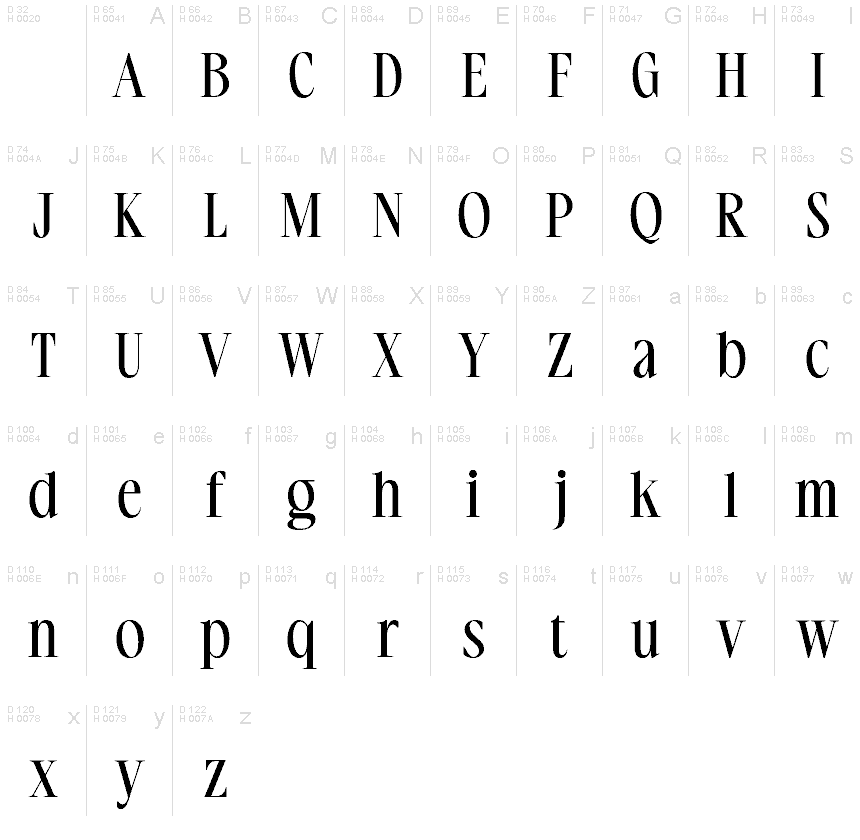
CS Hungary Regular Demo
CS Hungary font from Craft Supply Co. is a free serif font of both a timeless and classic style, and an elegant formality. Combining tradition with modernity, CS Hungary’s condensed characters instantly grab attention while giving off a sense of calmness with smooth lines that easily relax the viewing eye.
Use this tool in poster designs, branding projects, magazines, and books covers. Its stylish features work well with logos as well as all kinds of packaging designs and invitation cards (weddings, gala dinners).